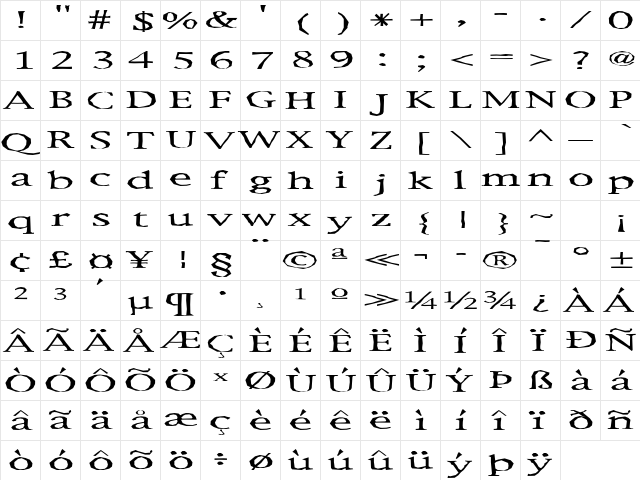
Metaphor Regular
Design Context for Metaphor Typeface
Metaphor is a composed and adaptable typeface that performs quietly and consistently across a wide range of design contexts.